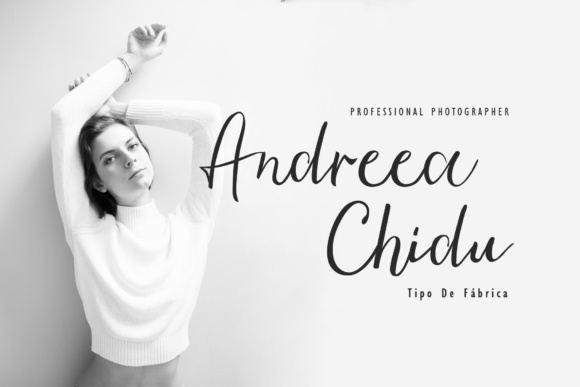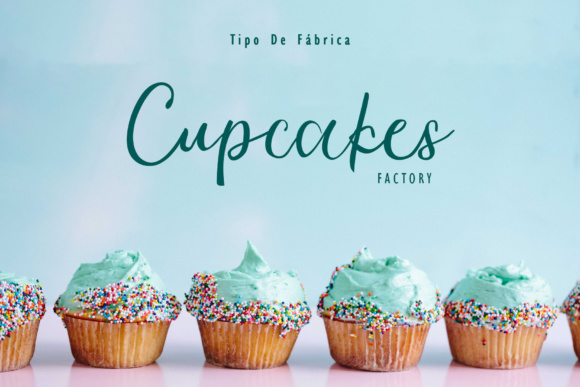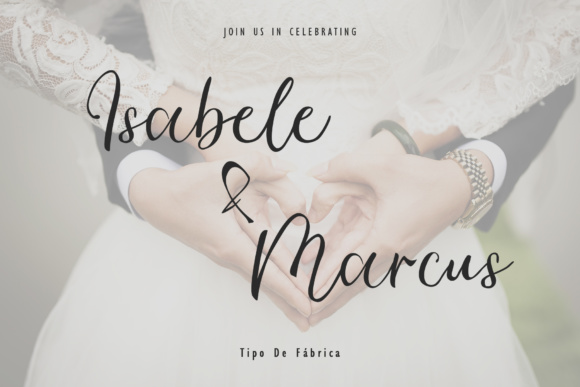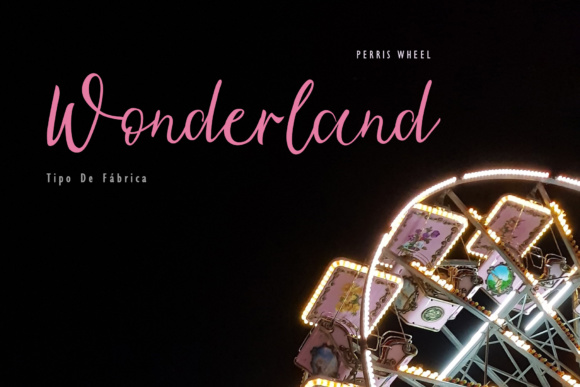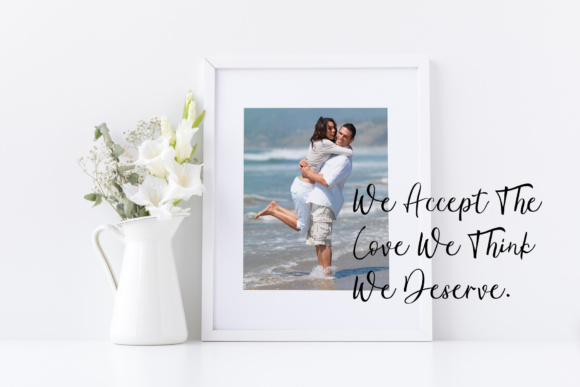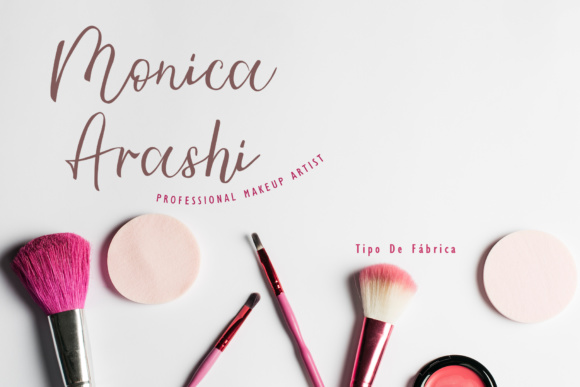
Introducing Ambre Script Font: The Perfect Elegant Touch for Your Designs
Are you a designer or crafter looking for a unique and elegant font to elevate your visual creations? Look no further than the Ambre Script Font! This charming hand-lettering font is perfect for adding a touch of sophistication and whimsy to your designs, making it ideal for Instagram stories, natural products, branding, and more.
What Makes Ambre Script Font So Special?
The Ambre Script Font is a one-of-a-kind, hand-crafted font that boasts an elegant touch, setting it apart from other fonts in its class. Its distinctive, flowing script style is reminiscent of handwritten calligraphy, giving your designs a personal and bespoke feel. Whether you’re creating social media graphics, product labels, or brand identities, Ambre Script Font is sure to make your work stand out.
Perfect for Instagram Stories and Social Media
In today’s digital age, Instagram stories and social media graphics are an essential part of any brand’s online presence. With Ambre Script Font, you can create eye-catching, engaging content that captures your audience’s attention. The font’s elegant, cursive style is perfect for highlighting promotions, announcing new products, or simply adding a touch of personality to your posts.
Ideal for Natural Products and Branding
If you’re a crafty entrepreneur or small business owner, you know how important it is to create a strong brand identity. Ambre Script Font is perfect for natural products, handmade goods, and eco-friendly brands. The font’s organic, hand-lettered feel resonates with customers who appreciate the personal touch and attention to detail that goes into crafting unique products.
Key Features of Ambre Script Font
- Hand-lettered elegance: Ambre Script Font boasts a distinctive, handwritten style that’s perfect for adding a touch of sophistication to your designs.
- Unique character set: With a range of characters, numbers, and punctuation marks, Ambre Script Font gives you the flexibility to create a wide range of designs.
Tips for Using Ambre Script Font
To get the most out of Ambre Script Font, here are a few design tips to keep in mind:
- Mix and match: Combine Ambre Script Font with other fonts to create a unique, layered look that adds depth and interest to your designs.
- Experiment with colors: Ambre Script Font looks great in a range of colors, from bold and bright to soft and pastel. Experiment with different hues to find the perfect match for your brand.
- Keep it simple: Don’t be afraid to keep things simple and elegant. Ambre Script Font is perfect for creating clean, minimalist designs that let your message shine through.
Ambre Script Font is a versatile, elegant font that’s perfect for designers and crafters looking to add a touch of whimsy and sophistication to their creations. With its unique, hand-lettered style and range of uses, Ambre Script Font is sure to become a go-to font in your design arsenal. So why wait? Download Ambre Script Font today and start creating stunning designs that capture your audience’s attention!